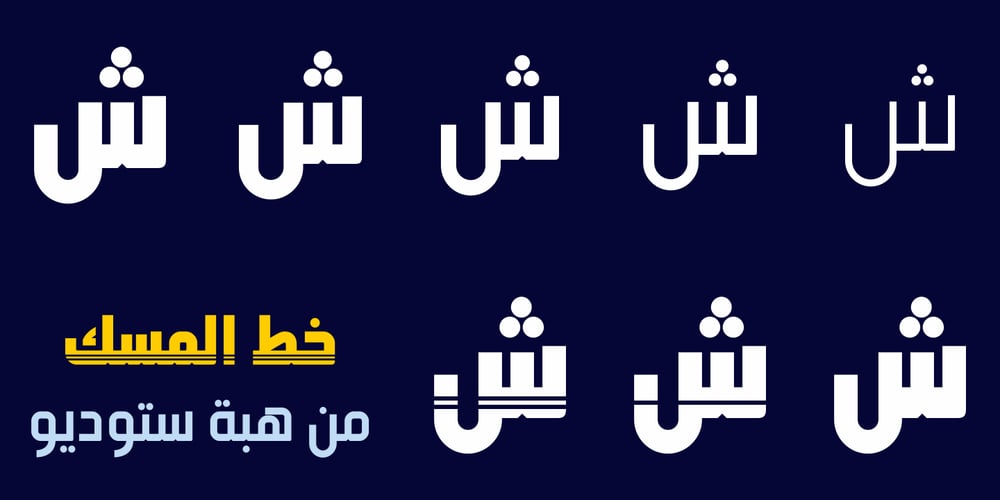
HS Almisk Font Family was designed by Hasan Abu Afash and published by Hiba Studio. HS Almisk contains 14 styles and family package options. HS Almisk is a display typeface. It can be used for titles, logos and graphic projects, which support Arabic and. It has been created based on modern kufi style. It enjoys flexibility between sharp and curved lines in the structure of characters. This supports with a beautiful appearance and wonderful geometric structure. The sharp endings in the bottom of character also give an aesthetic addition to the character. (8) Weights has been created for this typeface between the Light weight and Black weight. Besides, those three additional weights which can be used in headline, has baseline parts are thicker than the vertical parts. One has a regular form and the others has a stencil form in the middle using various styles. This typeface with its diversity of (8) weights is intended to be an attempt for a good addition to Arabic typography.